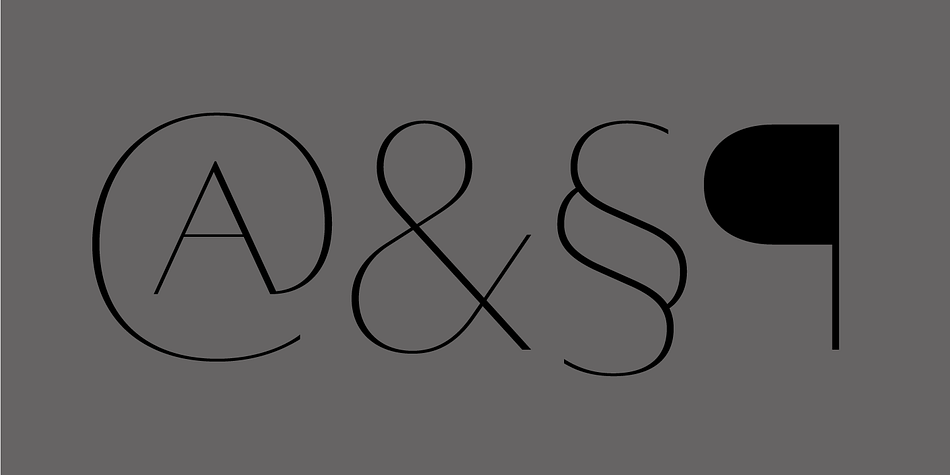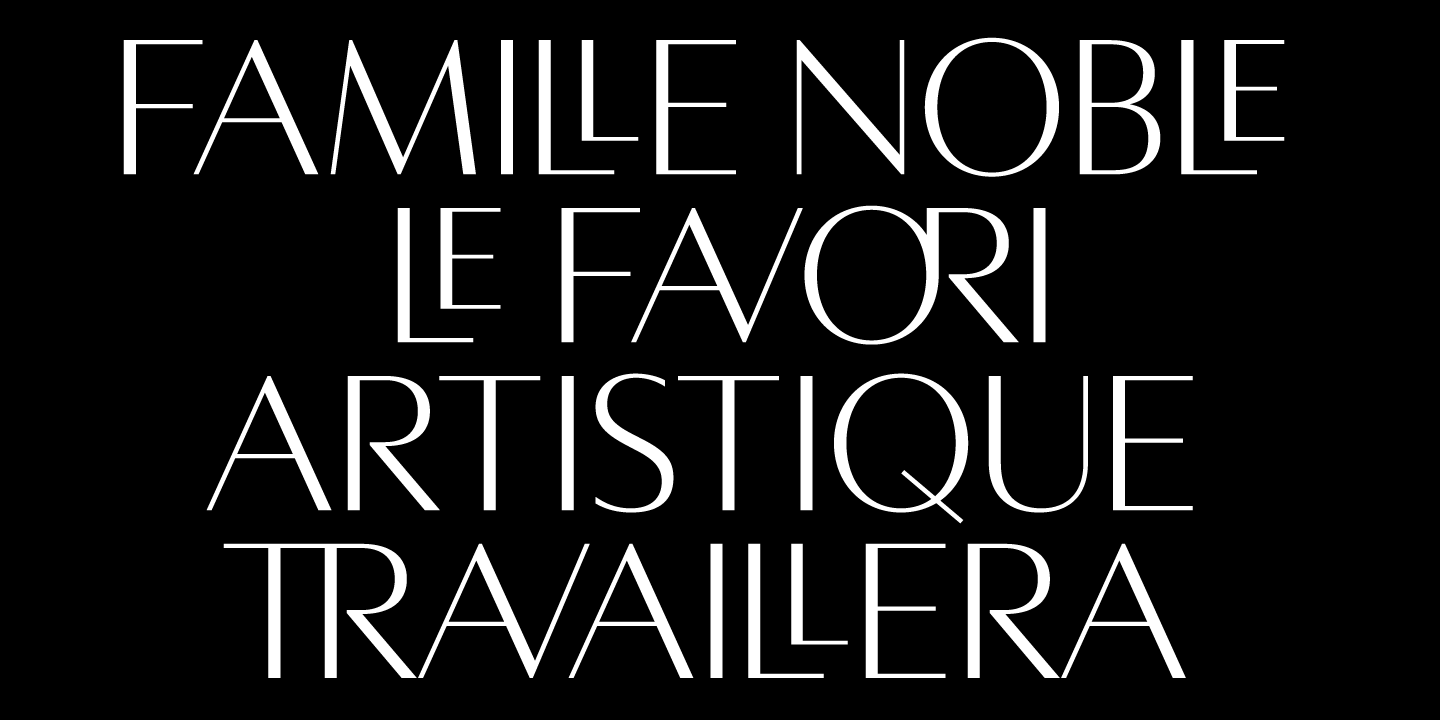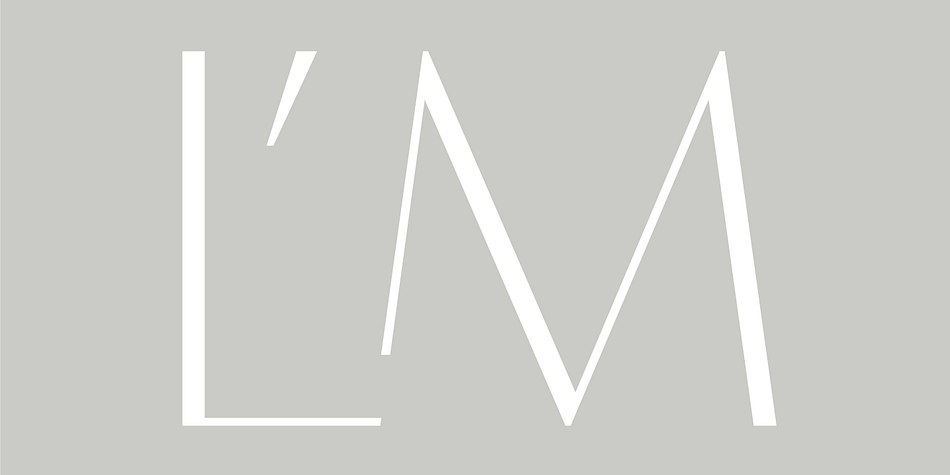
AVERES TITLE ROMAN
Designed by Michael Jarboe, Averes Title Roman is a display sans font family. This typeface has three styles and was published by AE Type Inc.
Averes Title Roman is a high contrast sans titling typeface available in three weights. It features an array of stylistic discretionary ligatures with corresponding accented variants supporting numerous languages.